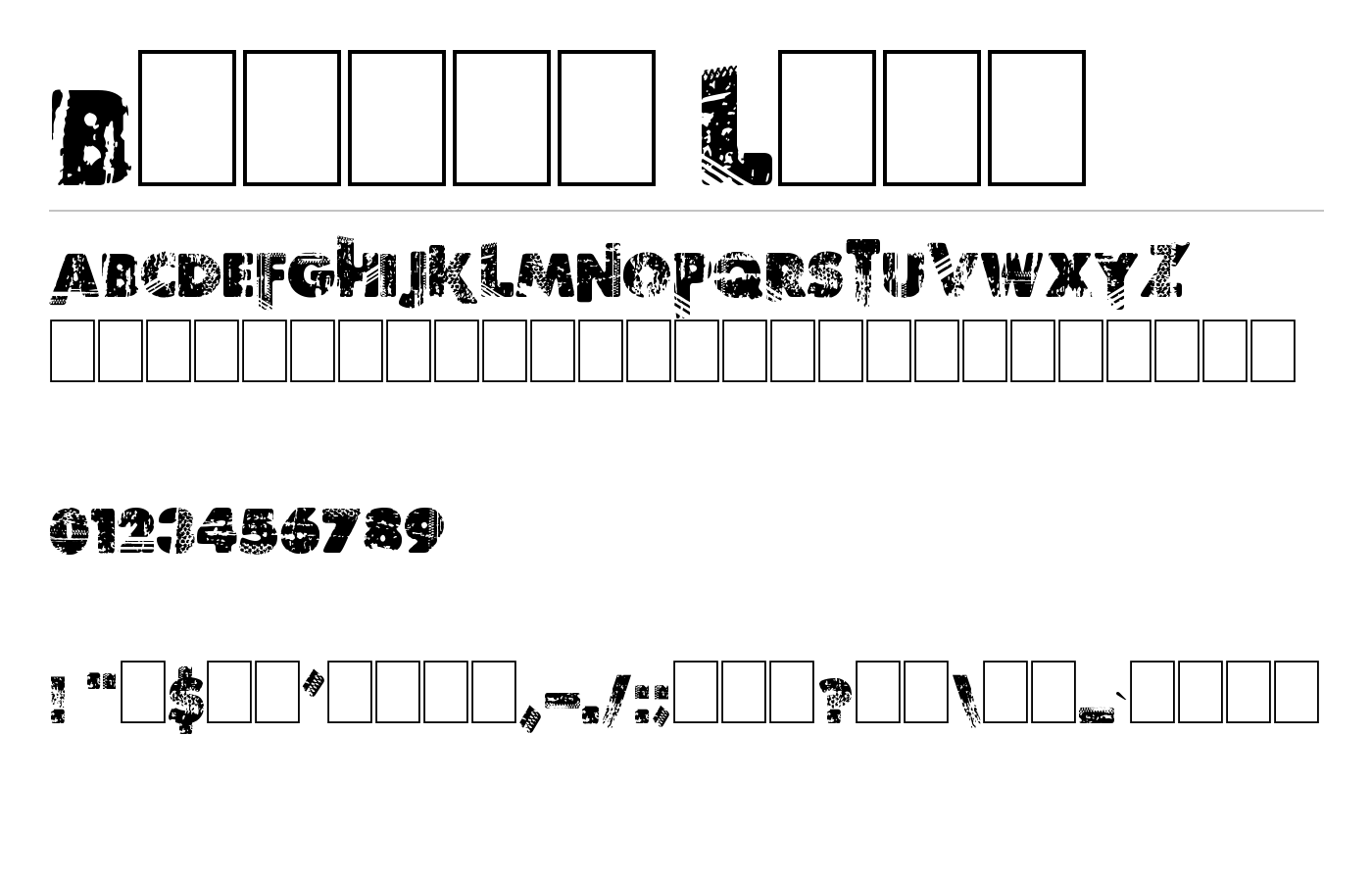
Border Line Font is a bold, distressed stencil-style typeface featuring uppercase letters and numbers with a rugged, textured appearance. Its heavy weight and worn, fragmented edges give it an industrial, vintage feel that works well for attention-grabbing headlines, posters, or branding needing a raw, edgy look. This font is ideal for designs aiming to convey toughness, urban grit, or a handcrafted, bold statement.
Border Line Font
About Border Line Font
| Font family | Border Line Font |
| Designer | IMAGEX |